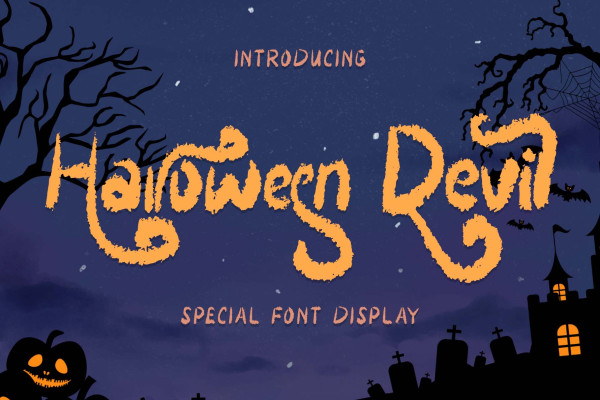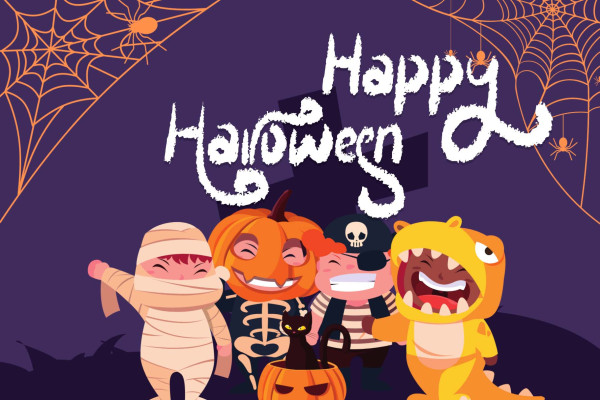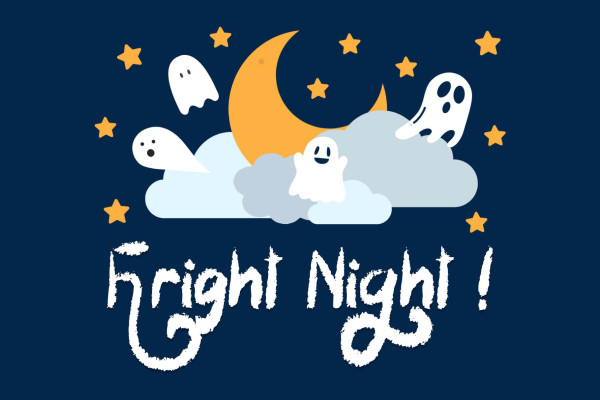
Halloween Devil Font
Halloween Devil Font is a unique and spooky display font. This font is perfect for Halloween moments, Halloween invitations, metal concerts, horror movie titles, and more. Equipped with uppercase, lowercase, ligatures, uppercase alternates, lowercase alternates, multilingual support, numerals, and punctuation.